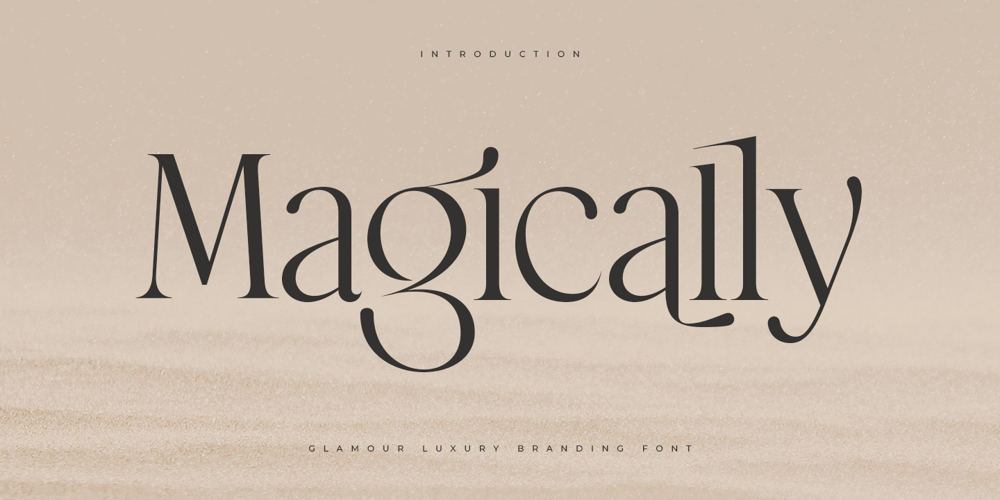
Magically Font Family was designed by Achmad Aprilia Pratama and published by Aiquitype. Magically contains 1 styles and family package options. IntroducingMagically – Glamour Luxury Branding Font, blends elegance and luxury, perfect for upscale brands seeking sophistication. With captivating curves and meticulous design, it’s ideal for logos and marketing materials, creating a dazzling impression of glamour and exclusivity.Will you get :1.Already Uppercase, Lowercase, Punctuations and Numerals2.Extra Alternates & Ligatures Collection3.Multilingual Support4.Private Use Area5.Very easy to access OpenType Features in various software such as : Adobe InDesign, Adobe Illustrator, Adobe Photoshop, Microsoft Word, and several other graphic design applications provide easy access to OpenType features.Elevate your brand’s image with ‘Magically – Glamour Luxury Branding Font’ and enchant your audience with timeless elegance.